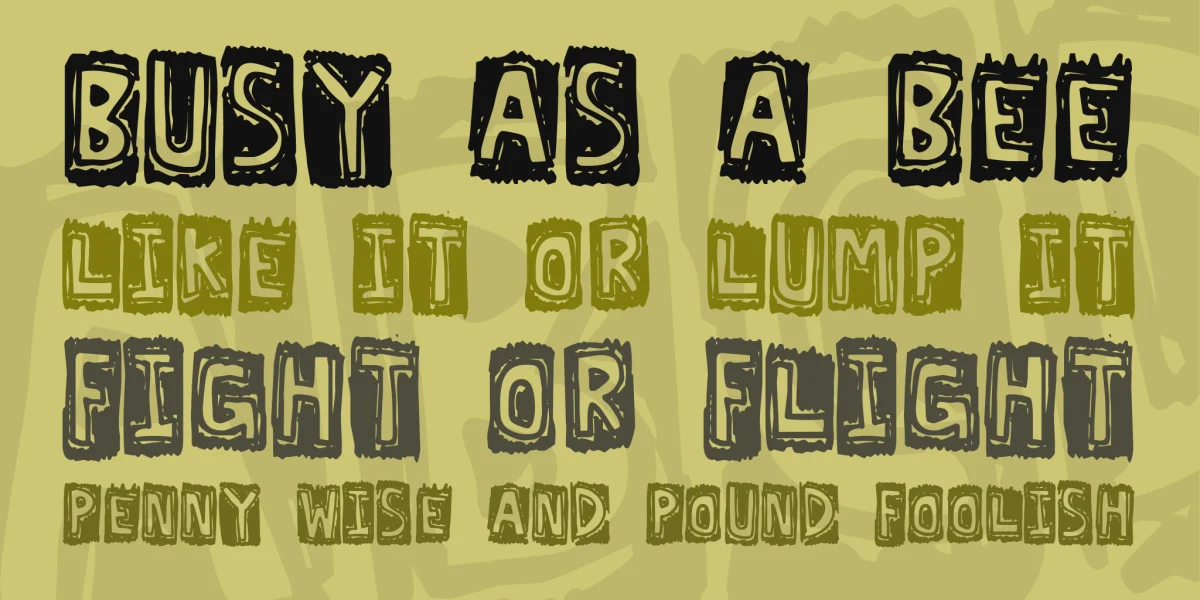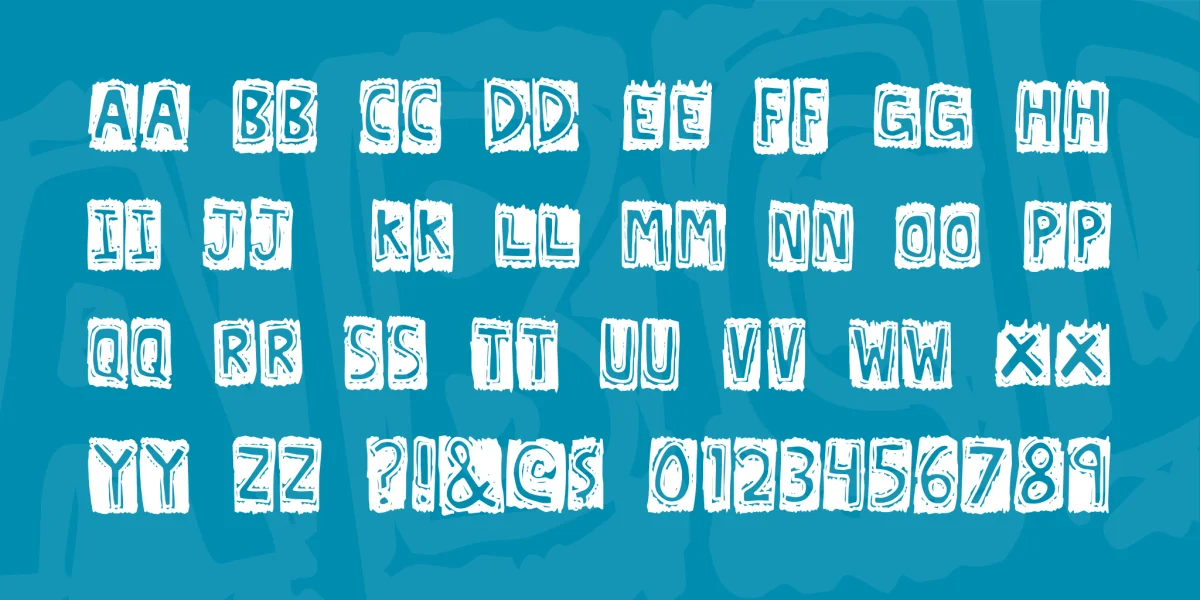
(All keyboard characters (caps=lower), some foreign/special) is another font from my brother's boring party. Looks cool, I think! It also looks too much like "today" and "k bits" on the fonts ladder, so those are being retired. Dig it!